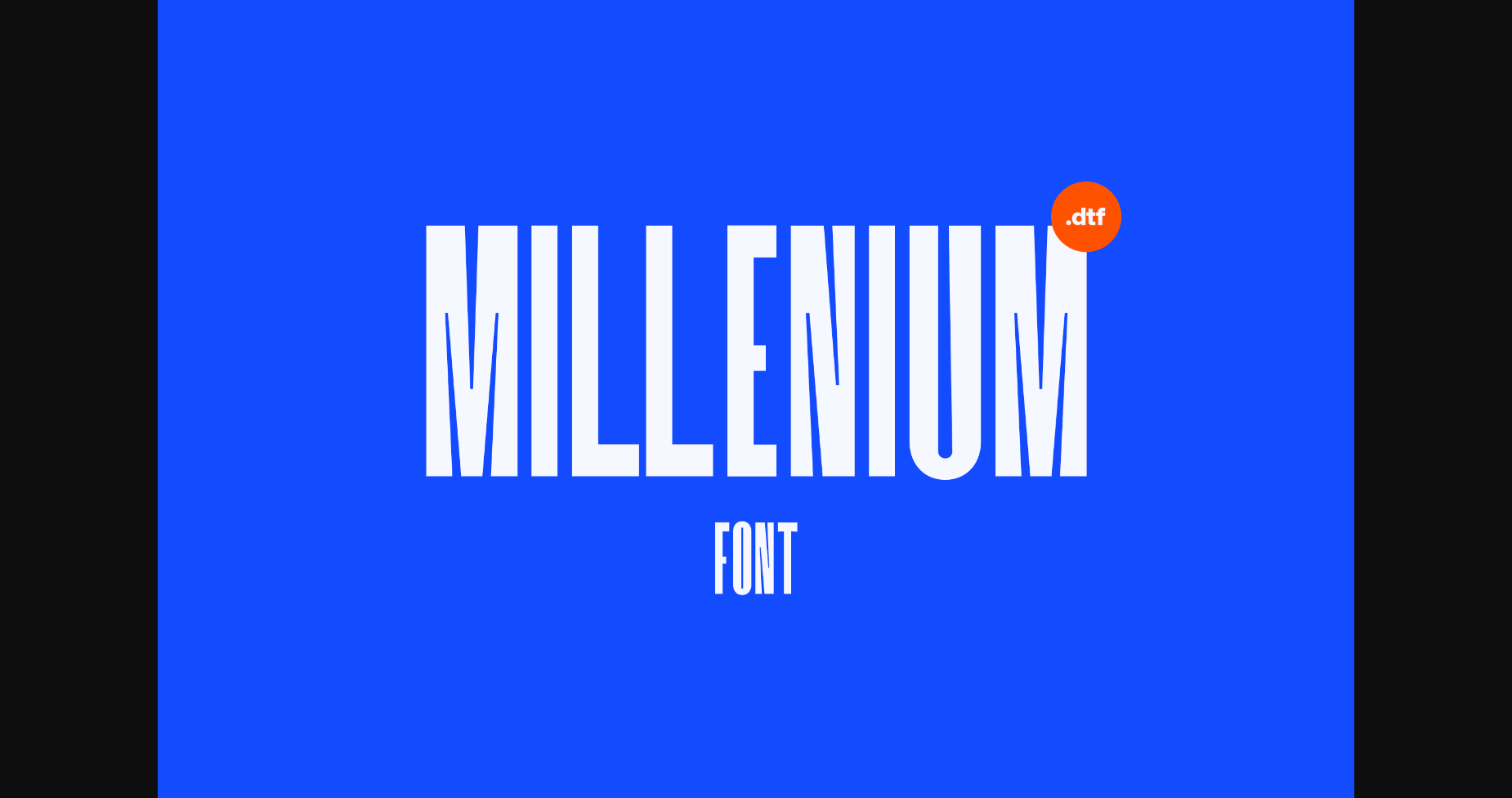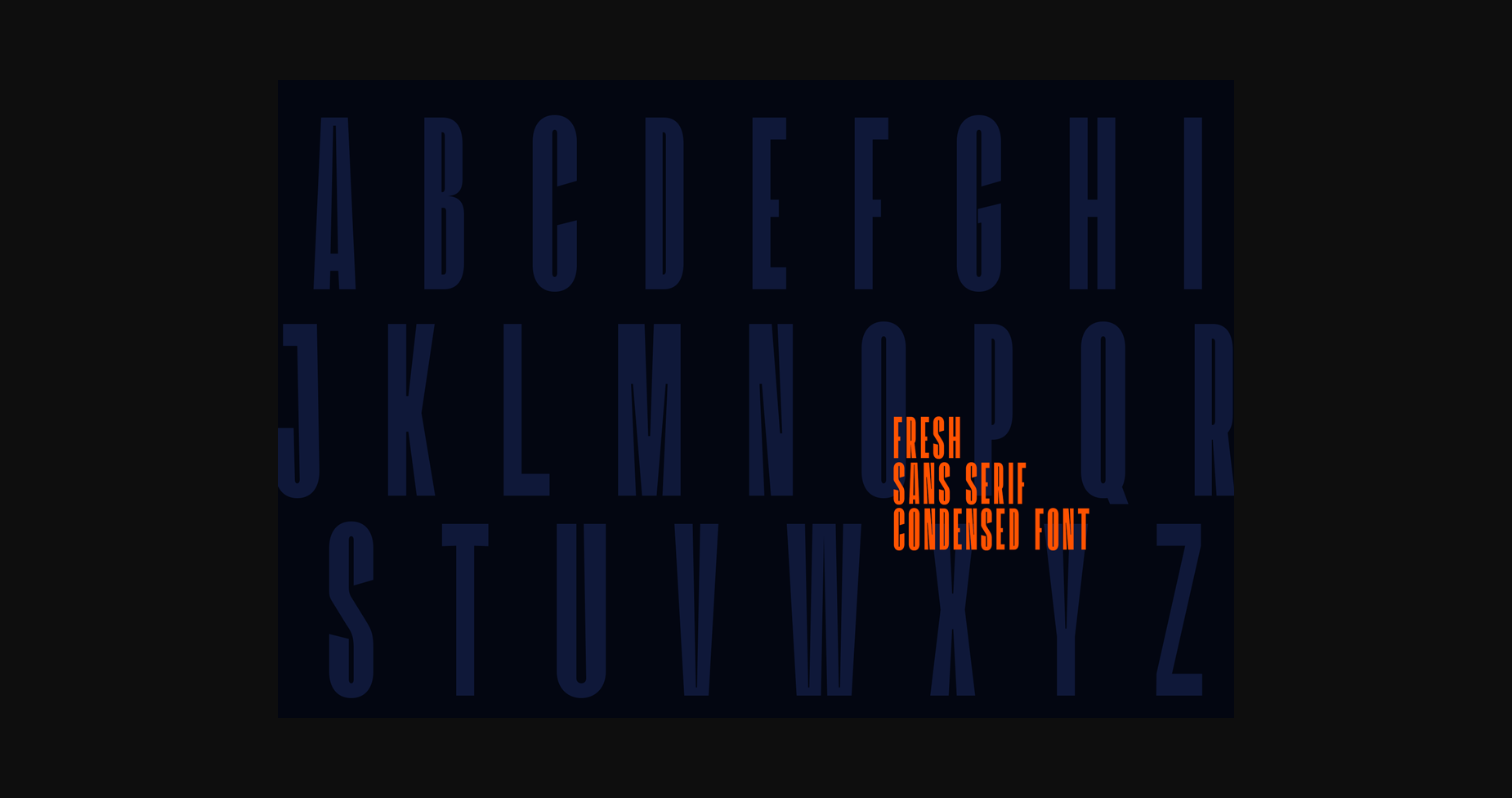
Millenium Font
About Millenium Font
Millenium is a bold, condensed sans serif font with asymmetric elements. It can be used in a vast variety of projects, such as logos & branding, posters, or for layout of magazine publishing houses.